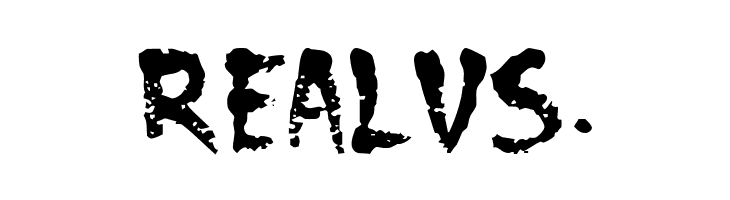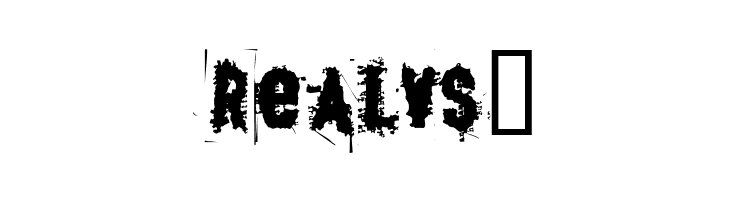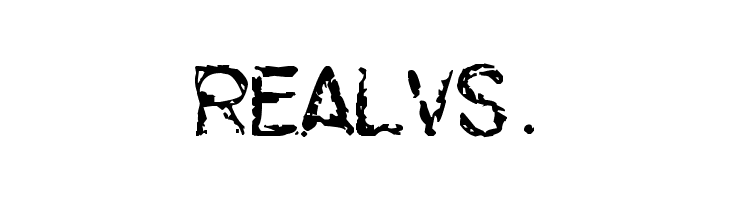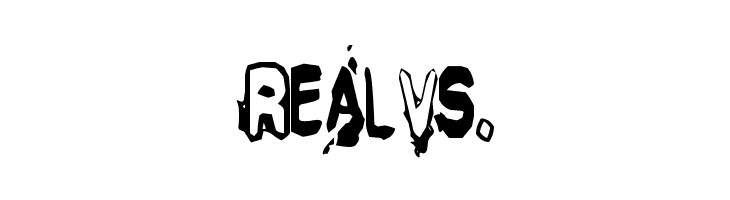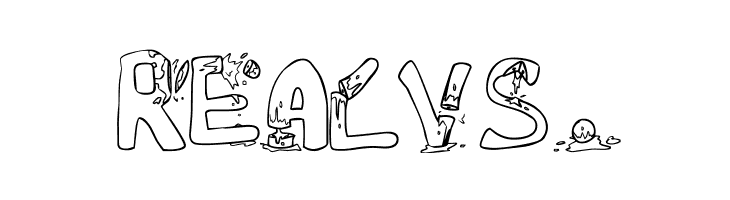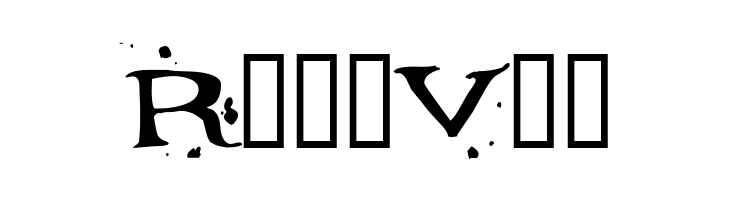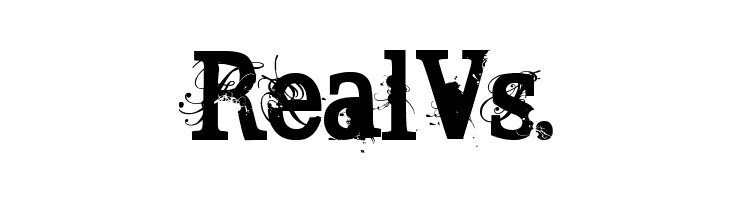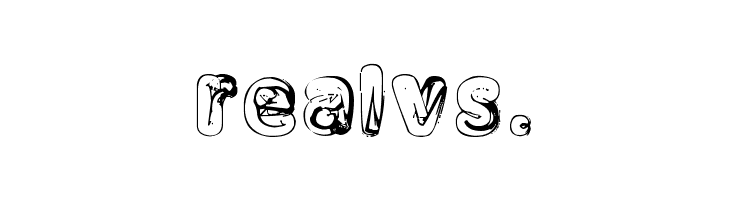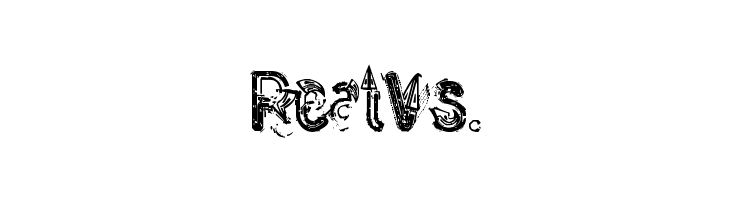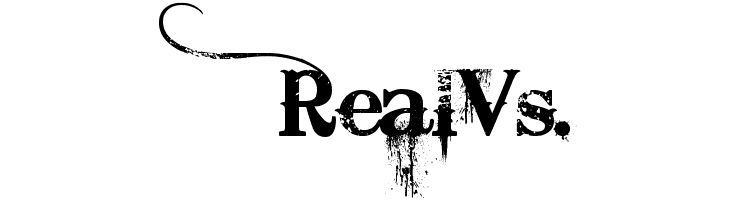
A gritty, horror-themed font with distressed, textured characters and unique special symbols.
A bold, distressed font with an edgy, chaotic style.
A bold, artistic font with a distressed, brush-like appearance.
A bold, distressed font with a grunge and rebellious style.
A bold, distressed font with a grunge and ghostly appearance.
A playful, grunge-style font with bold outlines and textured interiors.
A distressed, grungy font with a bold, chaotic aesthetic.
A decorative, distressed font with elaborate swirls and a grungy appearance.
A distressed, grungy font with jagged edges and a chaotic aesthetic.
A distressed, grungy font with irregular, jagged edges and bold strokes.
A bold, distressed font with a grunge aesthetic and rough edges.
A bold, distressed font with a grunge, graffiti-inspired style.
A bold, decorative font with a grunge and distressed style.
A bold, grungy font with a distressed, brush-painted appearance.
A bold, grungy, and decorative font with intricate details and distressed textures.
A bold, decorative serif font with grunge and distressed effects.
A bold, distressed font with a grunge texture and urban appeal.
A bold, chaotic display font with a punk rock aesthetic and distressed look.